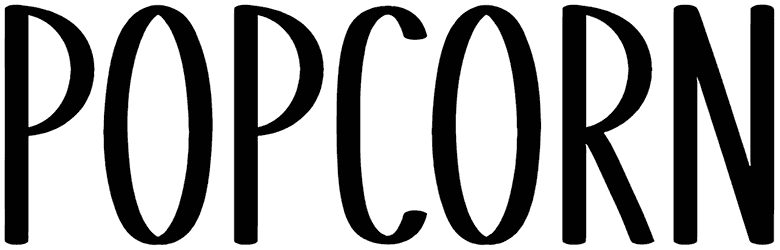
Popcorn Font
Next time you have an amusing food product packaging project that you don’t want to take any longer than necessary, you can totally count on the tall, smooth letters of Popcorn for that appetizing effect, luring the customers at a glance.
Adopting a playful tone, a lovely food font like this can increase your sales numbers beyond imagination. By the looks of it, the tall, cute letters of this fun font can do just fine even without its lowercase alternatives.